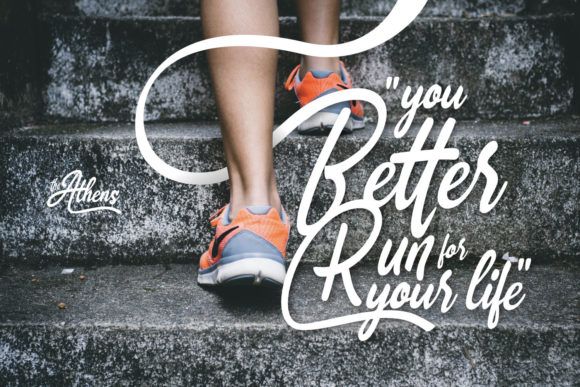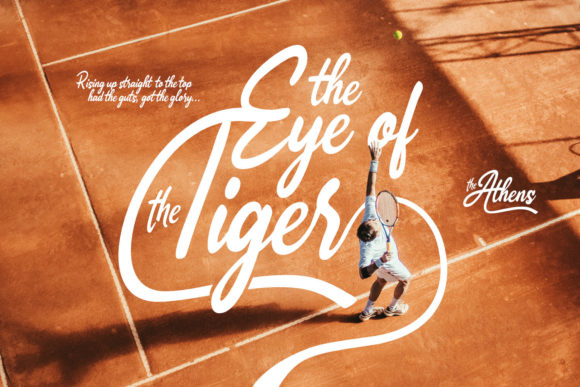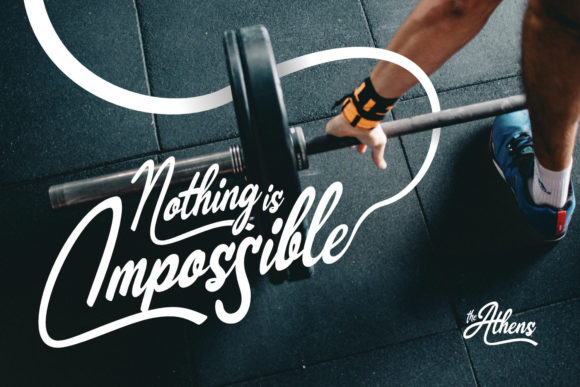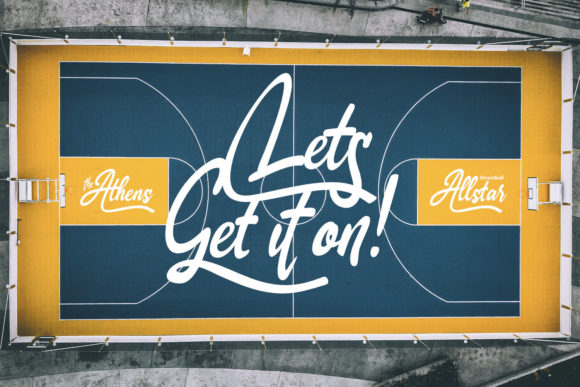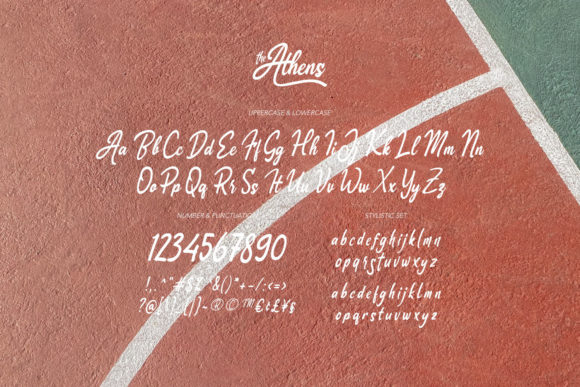
About The Athens Font
The Athens is a retro styled script font, featuring lovely letters with a flexible and wavy style. It is perfect for a magazine cover, flyer design, poster design, inspirational quotes, photography layout, and so much more. This font is PUA encoded which means you can access all of the glyphs and swashes with ease!Â